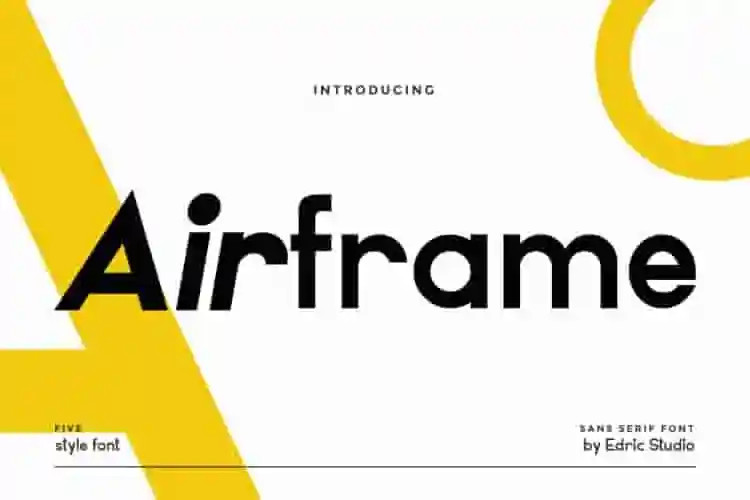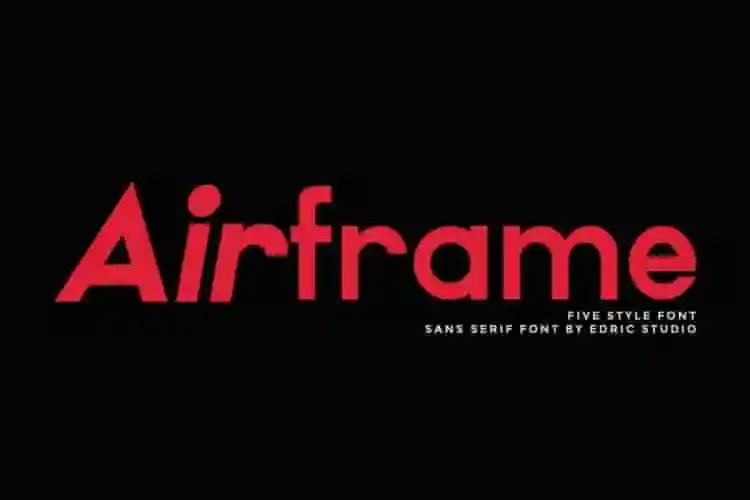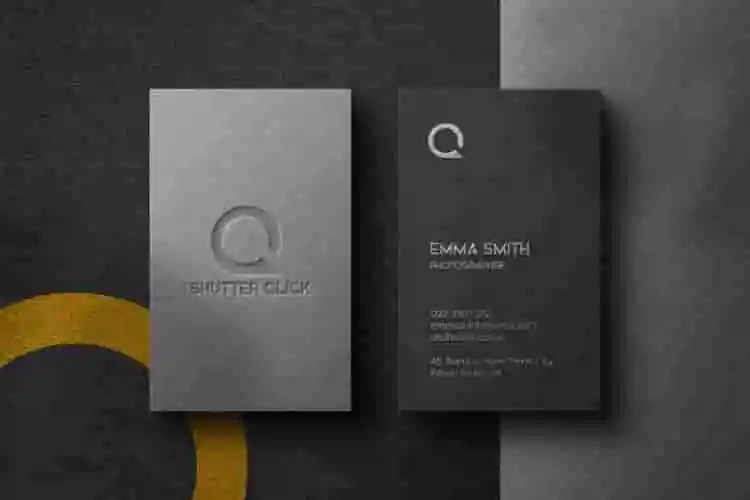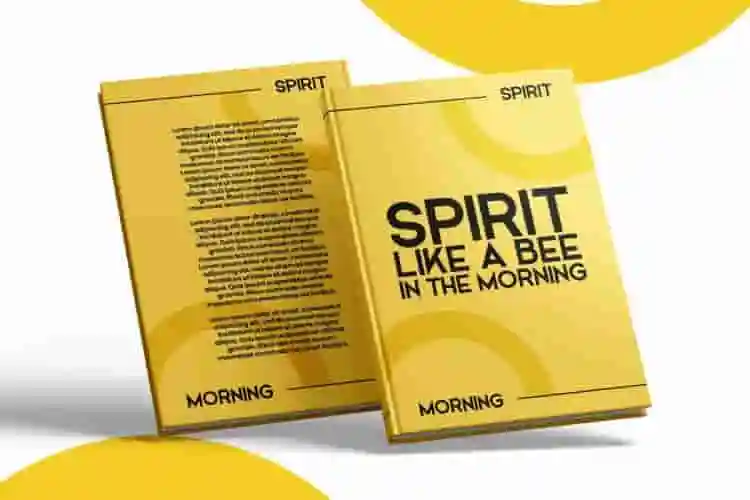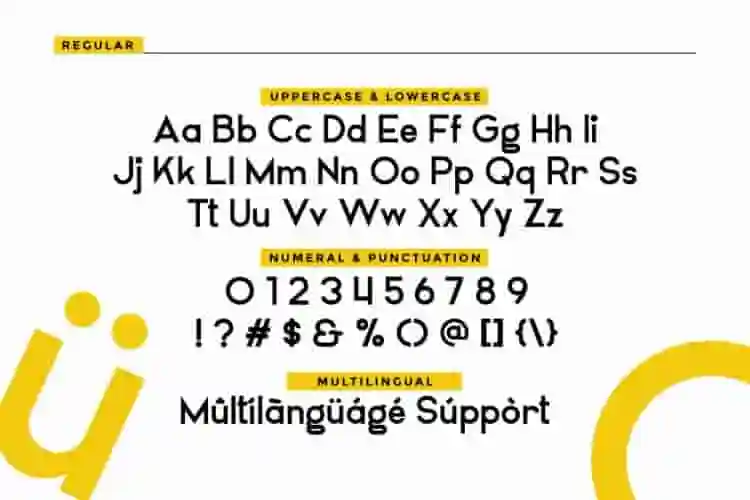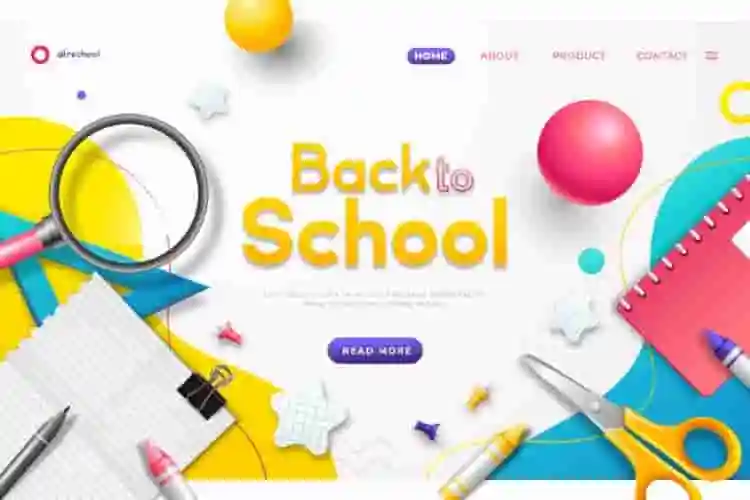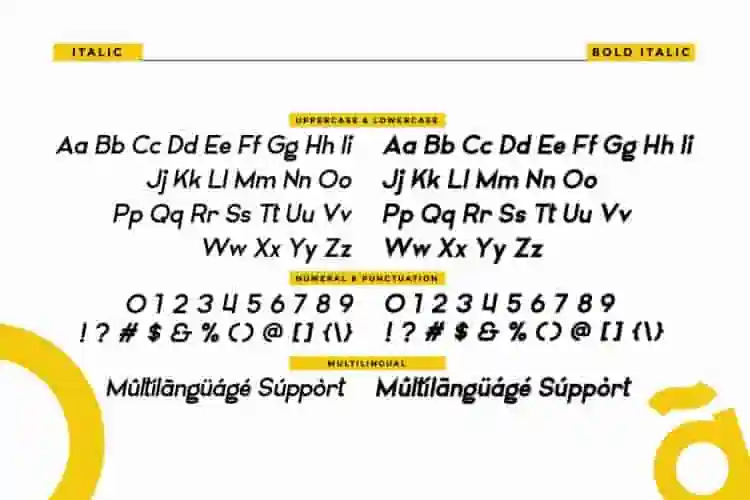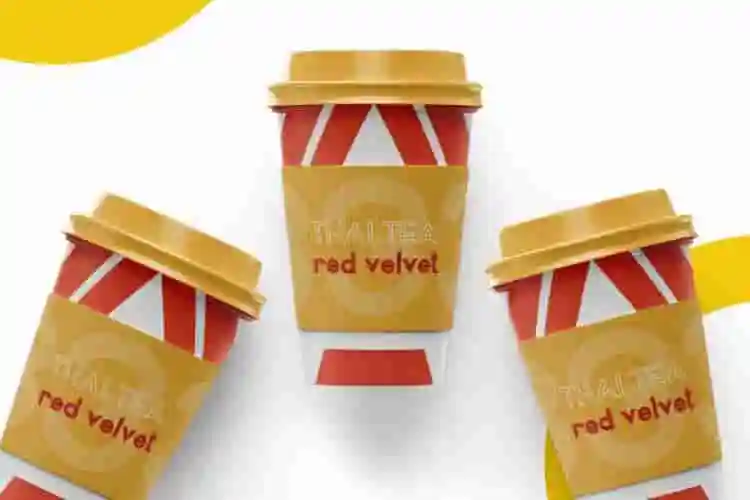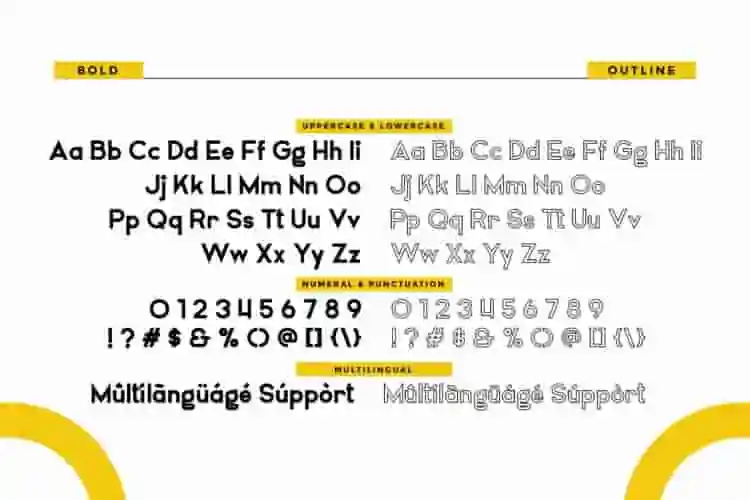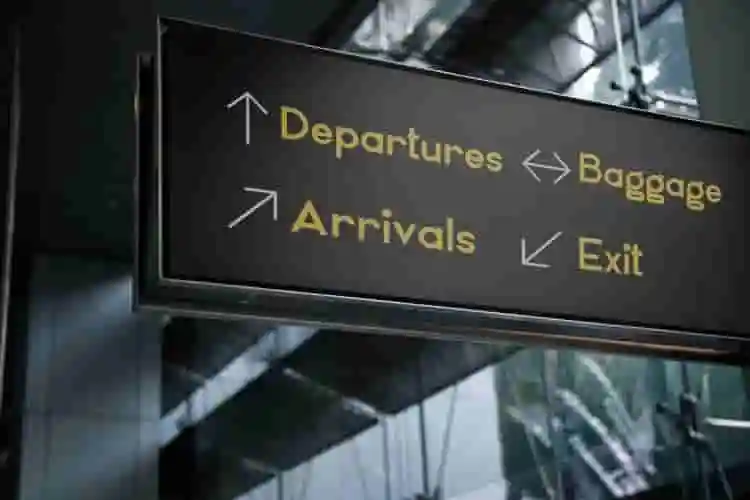
Airframe Sans Serif Font
Airframe Font is a modern sans serif typeface with casual style. The style of this font are elegant,  modern, stylish, minimal and simple style. This font was handcrafted from our Studio here in, Indonesia. The artists/designers of this beautiful typeface is Renata and Sarah Suci. Airframe Font will be great for any projects including : branding, logo, stationery, business card, signage, flyer, brochure etc. The font comes with five different styles : Regular, Bold, Outline, Bold-italic and Italic
Looking for a font that’s sleek, minimal, and effortlessly modern? Meet Airframe Sans Serif Font – a clean, contemporary typeface designed to bring clarity and professionalism to any project.
Airframe is a geometric sans serif font that balances precision and simplicity, making it ideal for branding, web design, editorial layouts, logos, business cards, app interfaces, and more.
Whether you’re building a strong corporate identity or crafting a modern portfolio, Airframe gives your work a polished, sophisticated edge.